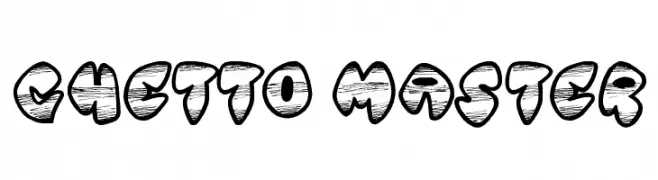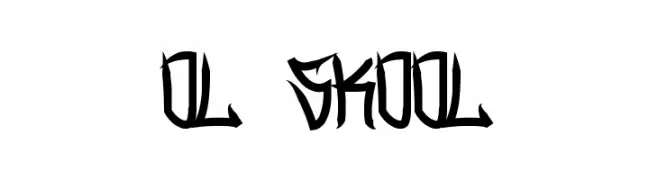
A bold, textured font with a distressed, graffiti-like style.
A bold, distressed font with a spray-painted, urban aesthetic.
An edgy, graffiti-inspired font with sharp, angular lines.
A bold, graffiti-inspired font with a hand-drawn, textured style.
A bold, expressive font with a dynamic, handwritten style.
A bold, graffiti-inspired font with sharp angles and dynamic strokes.
A bold, graffiti-inspired font with sharp, angular lines and a rebellious aesthetic.